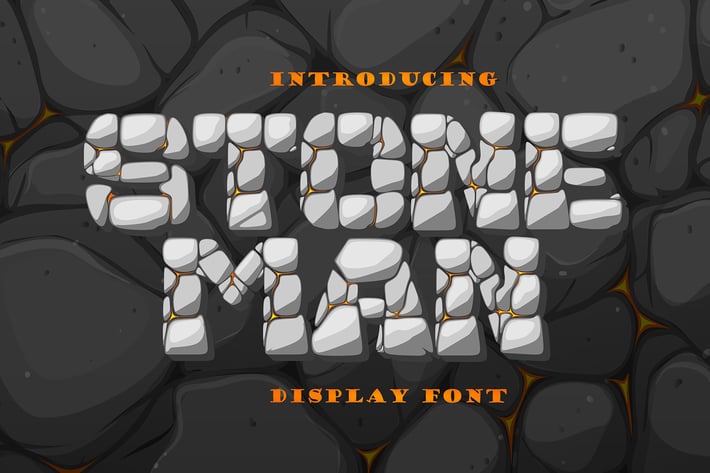
Stone Man - Rock Texture Font
Stone Man is a decorative font with Rock decoration characters. It will elevate a wide range of design projects to the highest level, be it branding, headings, wedding designs, invitations, signatures, logotypes, wall art illustrations, labels, and much more!